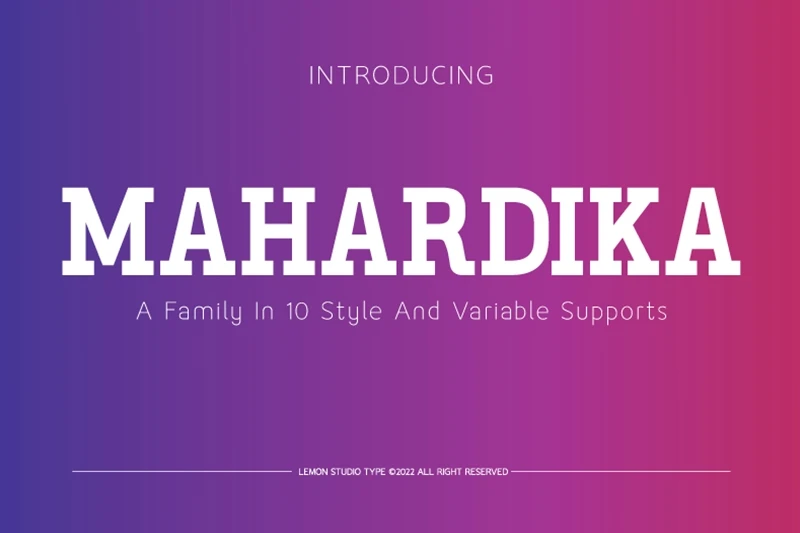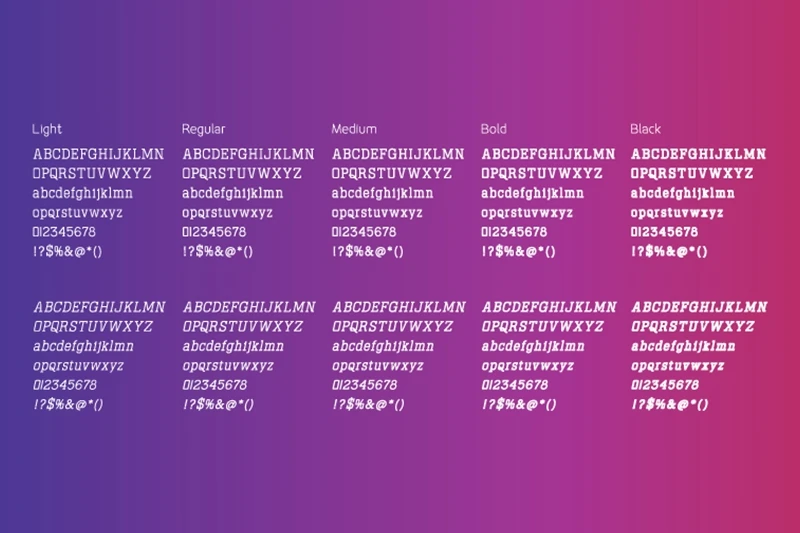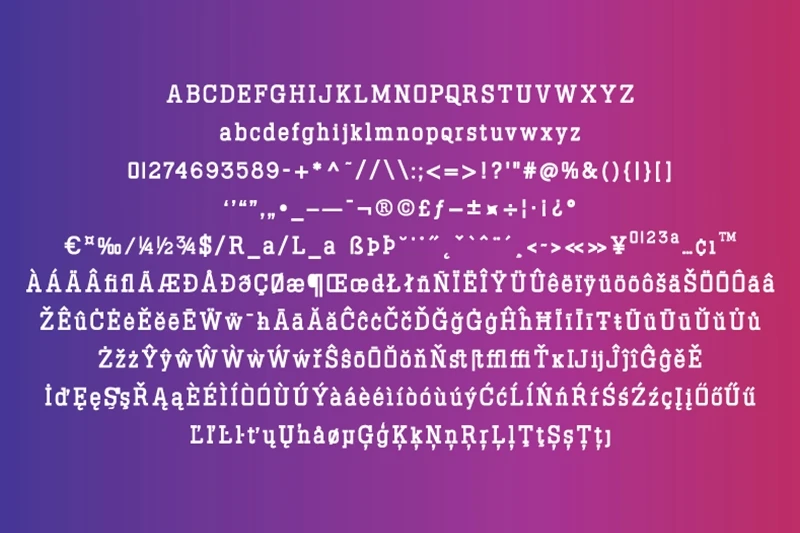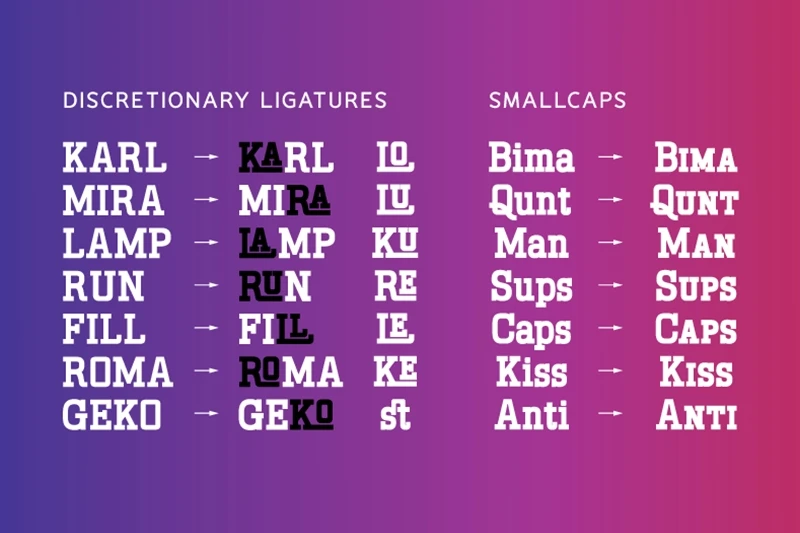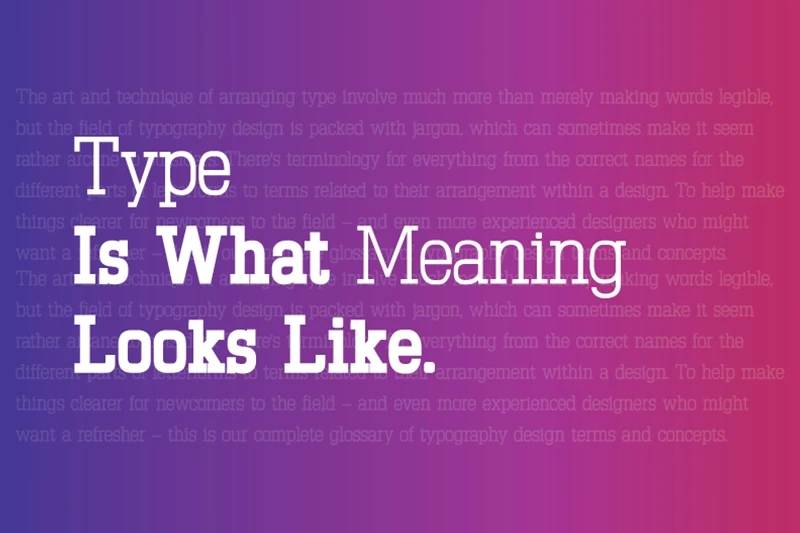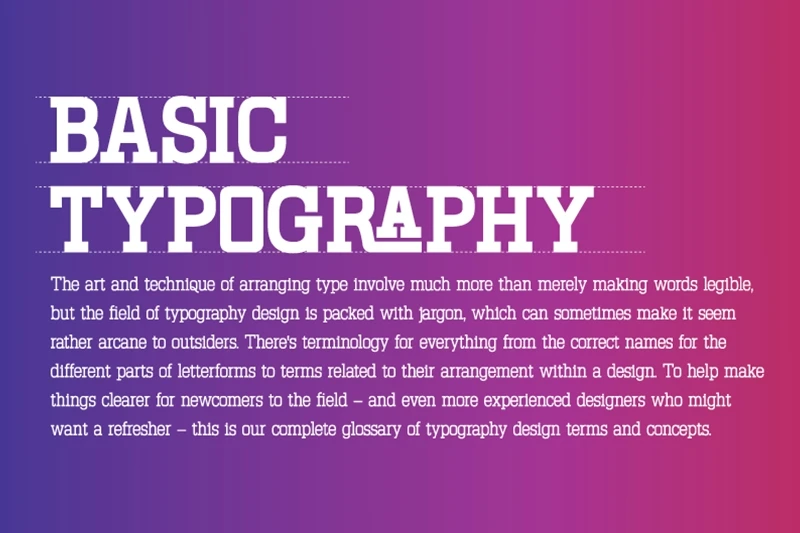
MAHARDIKA is a simple Retro SPORT sans family with variable font technology, and its axis weight range spreads from Light to black forms. Flexible and adaptable,
it is 100% Latin Plus, Supporting 219 Latin-based languages, which are spoken in different 212 countries.
This font is suitable for any project. Great for graphic design and any display use. It can easily work for web, signage, corporate as well as editorial designs.
-FEATURES:
-STANDARD CHARACTER SET
-OPEN TYPE FEATURES:
-Stylistic Alternates
-Standard Ligatures
-Discretionary Ligatures
-Historical Forms
-Fractions
-Superscript
-Small Capitals
-Multilingual Support.